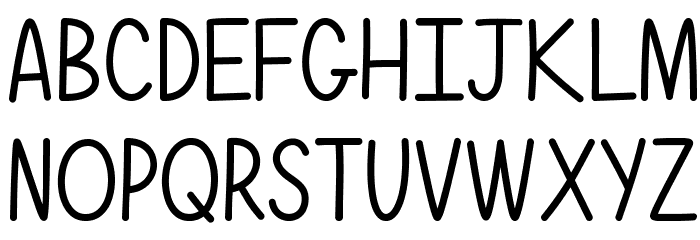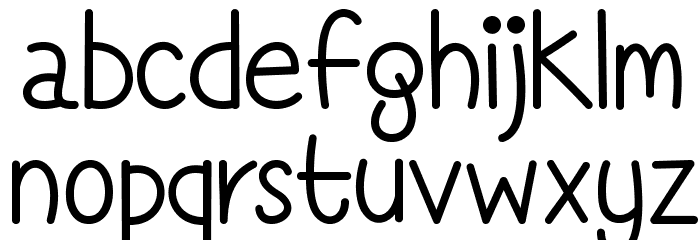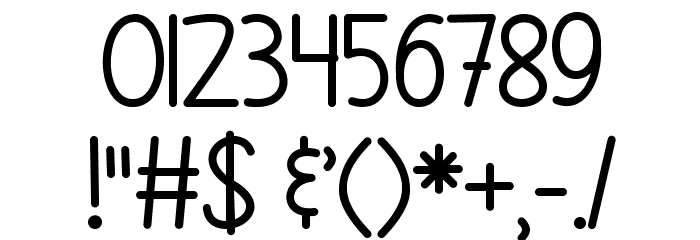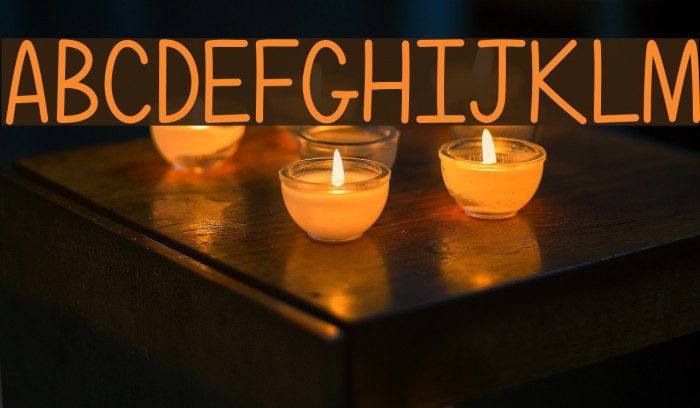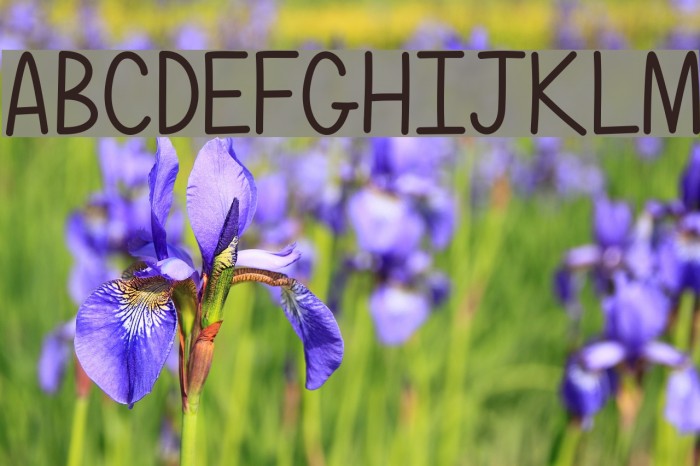
SimplyComplicated Font
This playful and whimsical font features rounded, hand-drawn characters that convey a sense of friendliness and approachability. The letters have a consistent stroke width, giving them a uniform appearance, while the slightly irregular shapes add a touch of charm and personality. The font includes both uppercase and lowercase letters, numerals, and a variety of special characters, making it versatile for different design needs. Its informal style makes it suitable for projects that require a casual and fun aesthetic.
A playful, hand-drawn font with rounded, friendly characters.
- Proposed Projects: Ideal for children's books, greeting cards, playful branding, and social media graphics.
- Overall Style: Casual
- Use Case: Headlines, Informal text, Branding